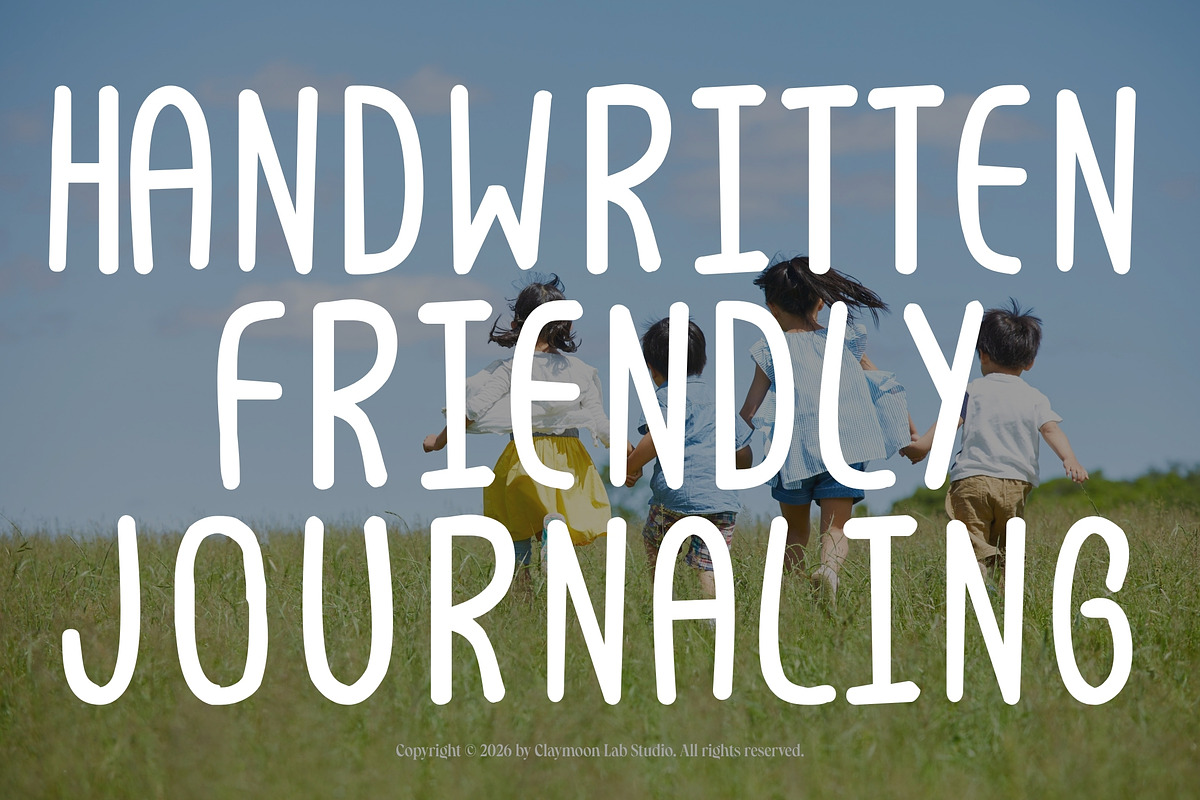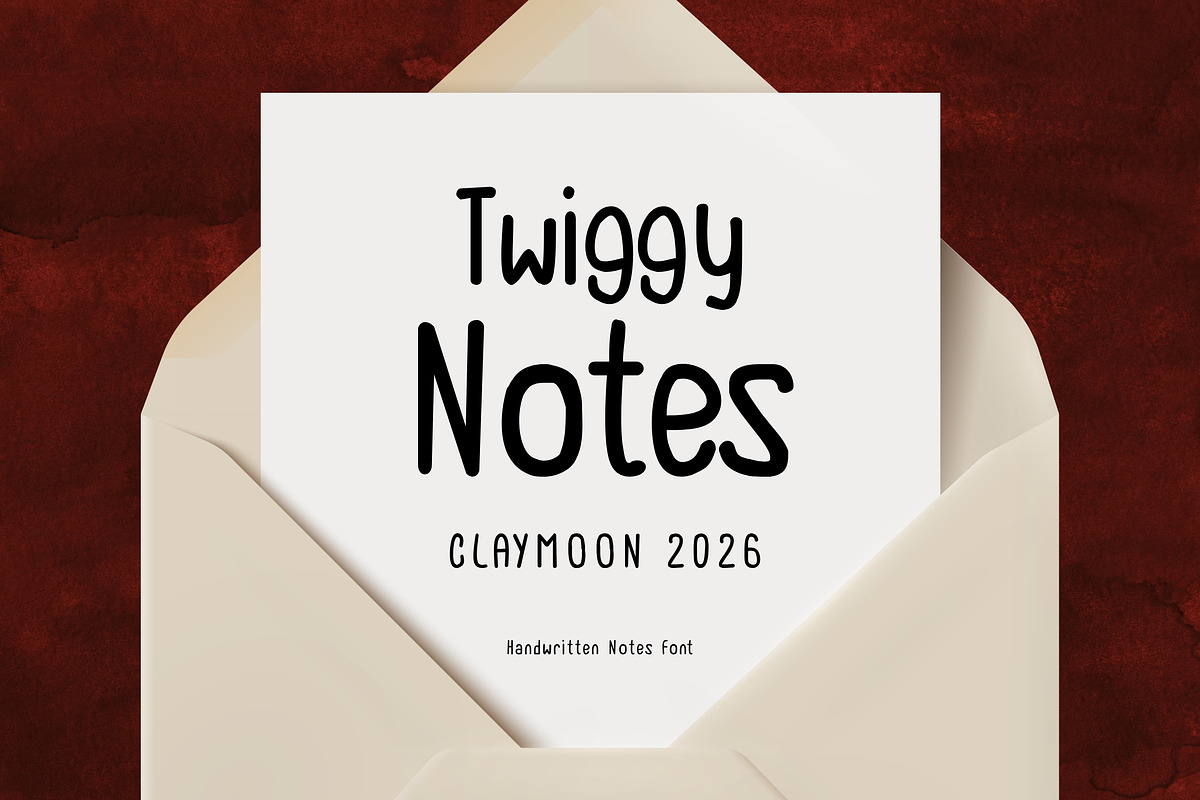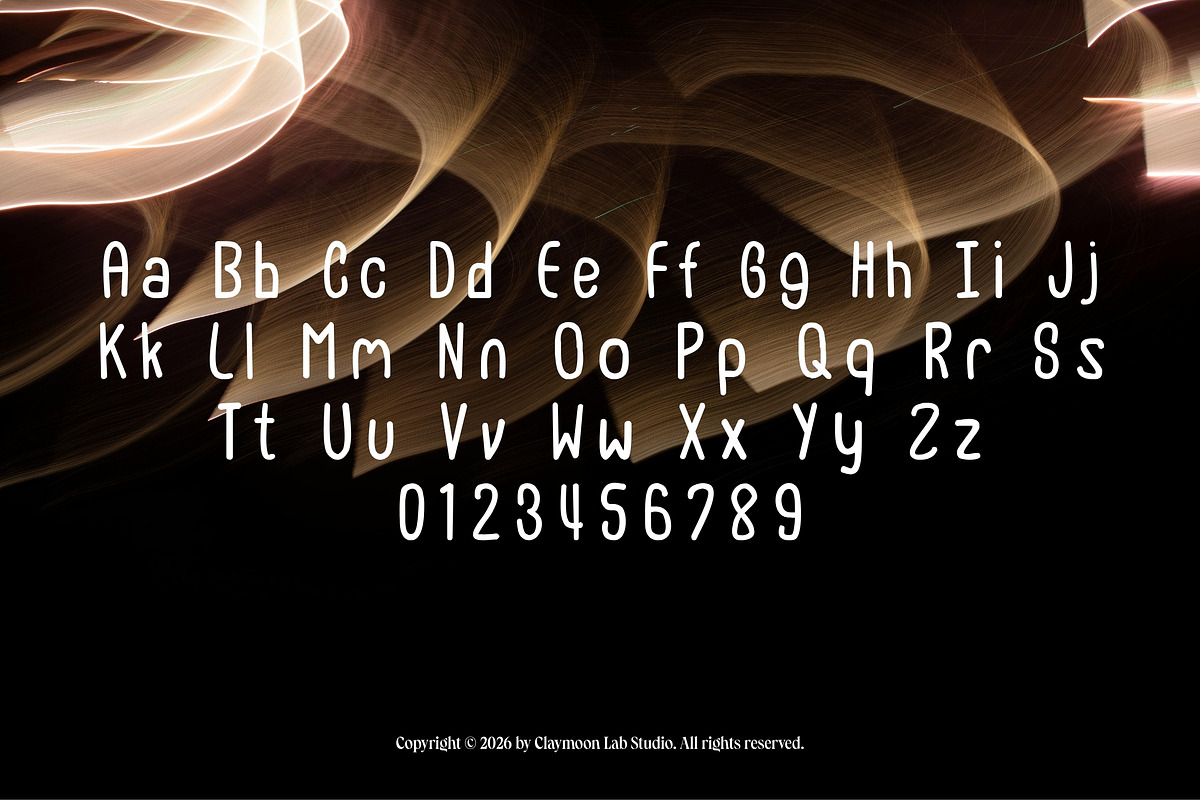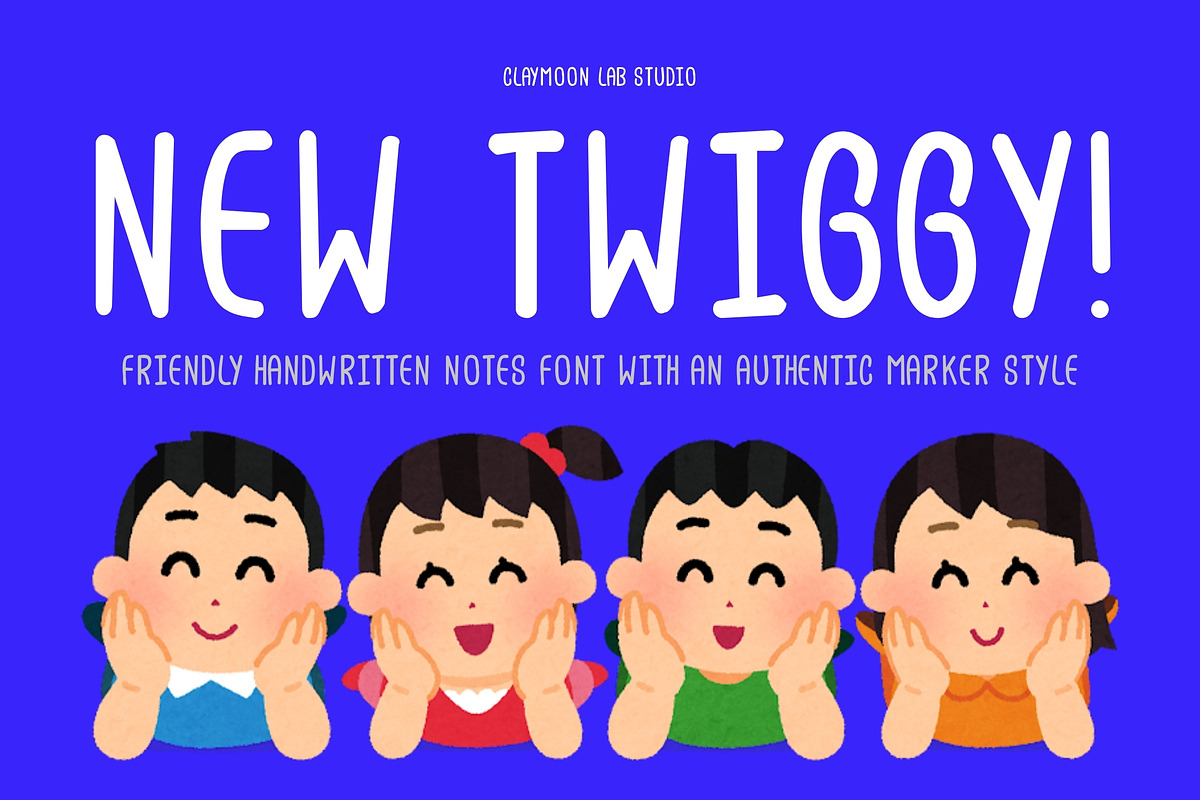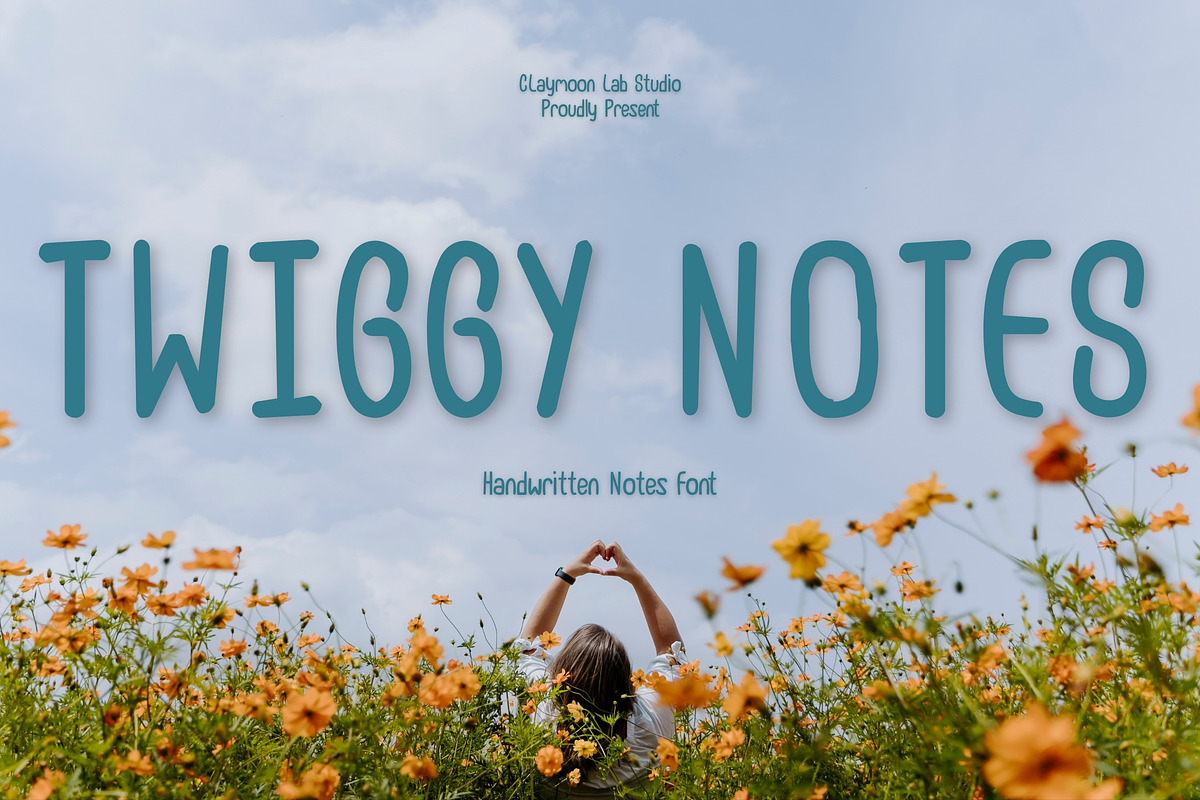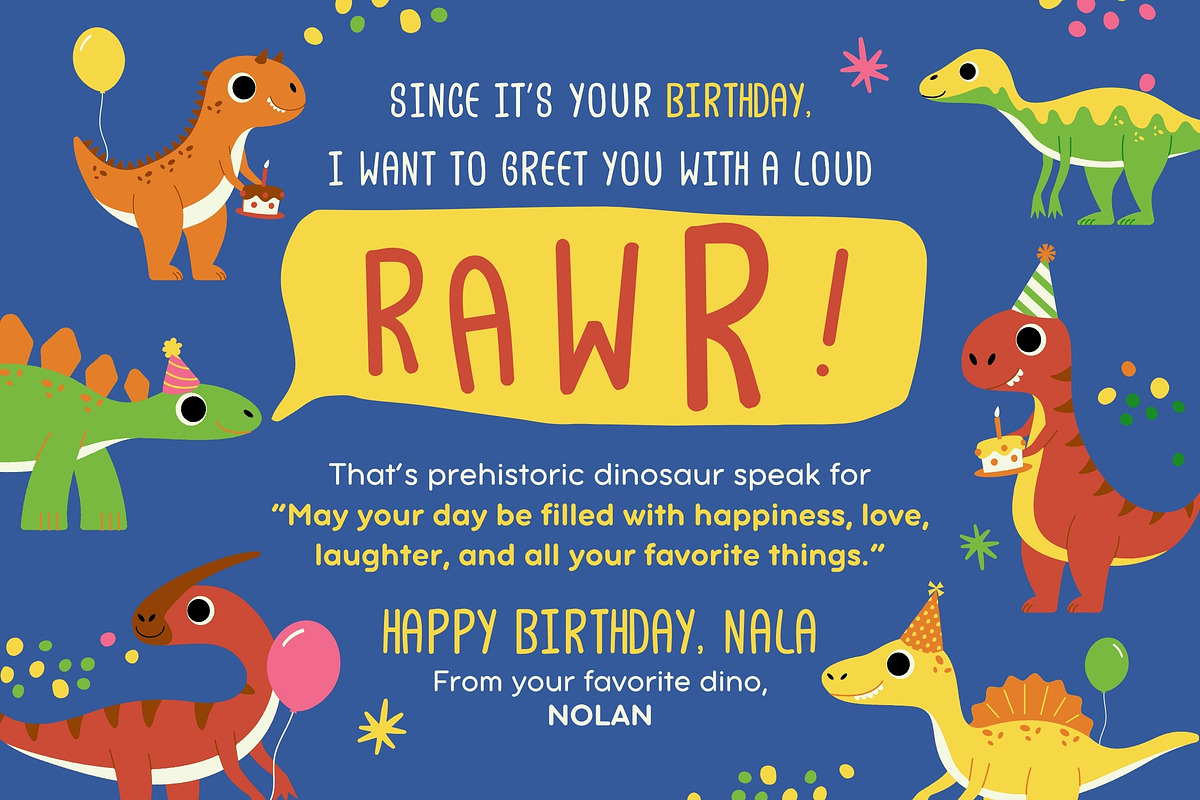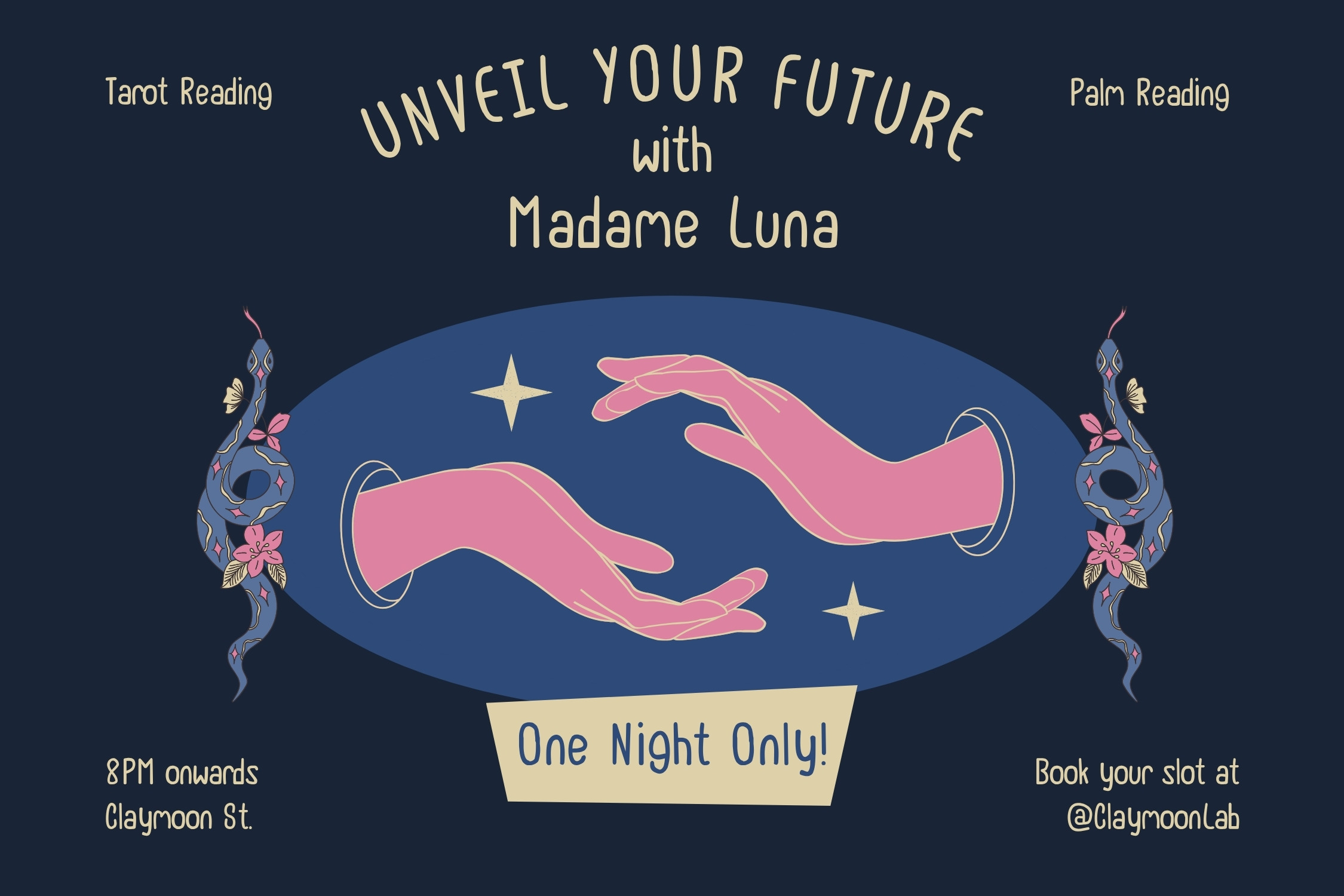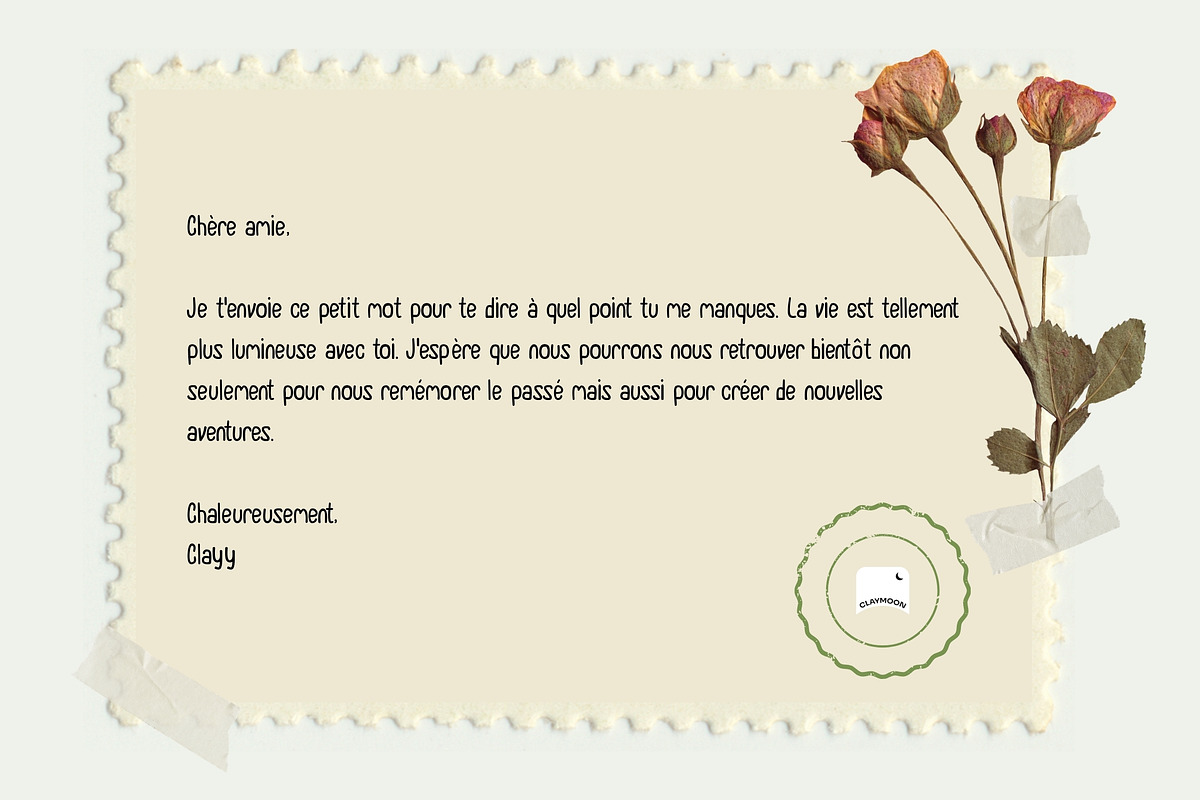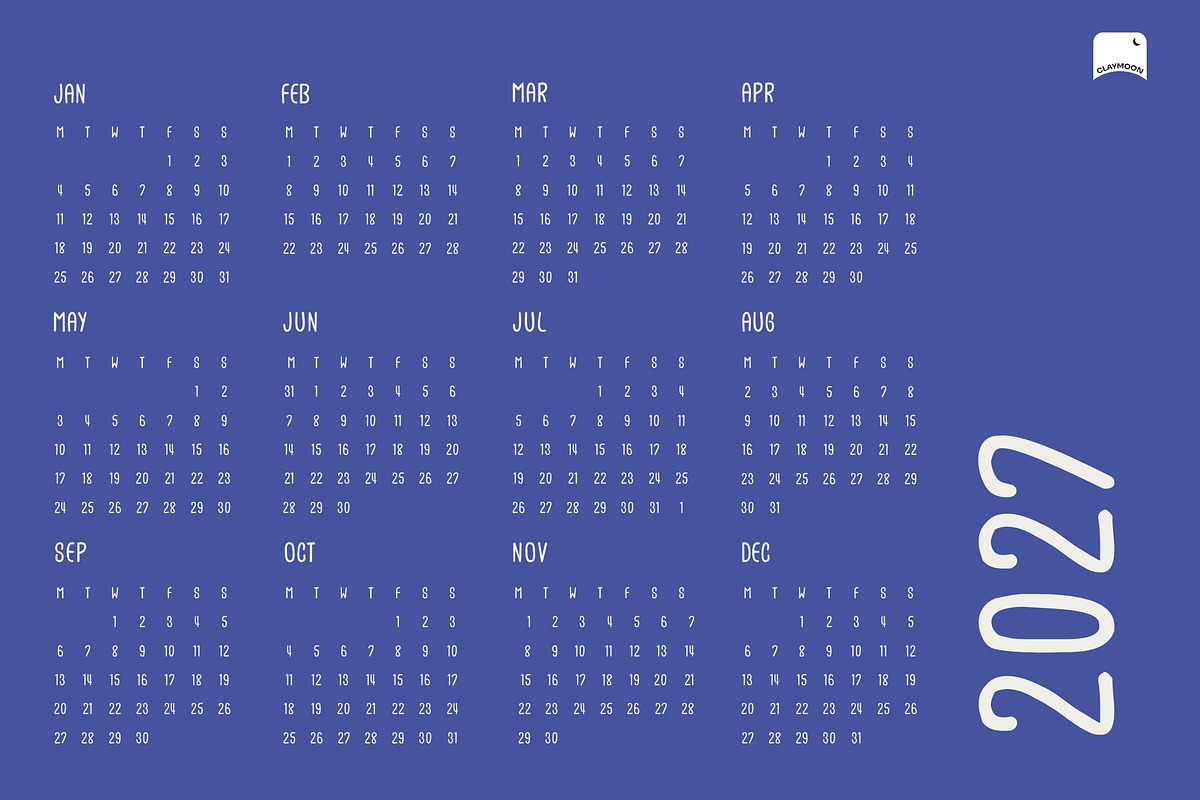
New Twiggy — Handwritten Font
New Twiggy — Handwritten Notes Font
Capture the warmth of a personal touch with Twiggy Notes, a charming handwritten notes font that radiates authenticity, intimacy, and effortless creative personality. Designed to mimic the natural rhythm of everyday handwriting — with rounded, slightly uneven strokes and organic letterform energy — Twiggy Notes brings an immediate sense of warmth and human connection to any design it touches.
Whether setting the tone for a heartfelt letter, a whimsical greeting card, a journaling layout, or a cozy brand identity, Twiggy Notes delivers consistent legibility without sacrificing the spontaneous, personal quality that makes handwritten typography so universally appealing. Its clean yet casual construction works beautifully at both display and body text sizes, making it one of the most versatile handwritten fonts in your creative toolkit.
Full Character Set: Uppercase, lowercase, numerals, and standard punctuation.
Multilingual Support: Extended Latin character coverage for international creative projects including French, Spanish, and more.
Perfect For These Projects:
Greeting Cards & Stationery: Crafting heartfelt cards, personal letters, postcards, and handwritten note designs with genuine warmth and personality.
Branding & Logo Design: Building cozy, approachable brand identities for lifestyle brands, cafes, wellness businesses, and creative studios.
Editorial & Publication Design: Setting whimsical chapter headers, pull quotes, and decorative text accents in journals, books, and digital publications.
Digital & Social Media Content: Creating warm, personal social media graphics, quote cards, story templates, and digital content with an authentic handmade feel.
UI & Web Design: Applying friendly, approachable handwritten typography to website headers, app onboarding screens, and digital product interfaces.
Claymoon Lab Studio